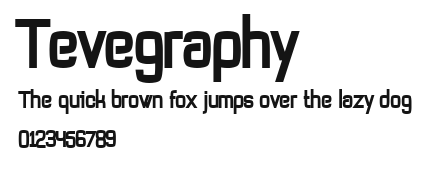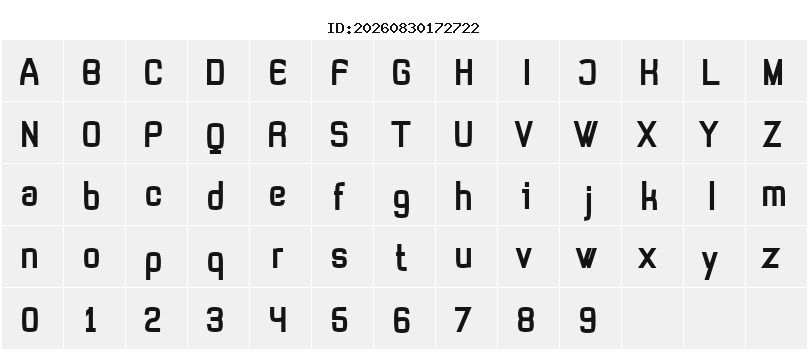
Tevegraphy Preview
• Font Name: Tevegraphy
• Designer: Måns Grebäck
• Manufacturer: Måns Grebäck
About Tevegraphy.ttf
Tevegraphy.ttf is a modern, elegant sans-serif font designed for ultimate readability and visual harmony. Perfect for branding, headlines, web design, and print materials.